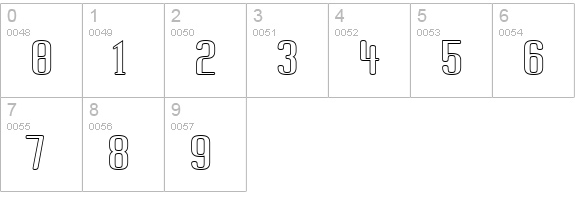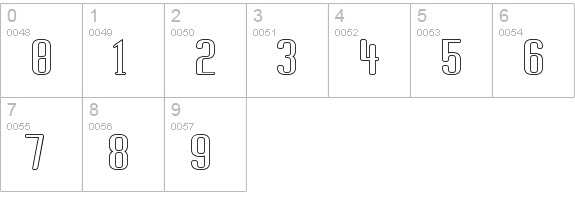
Brassiere Seethru Font Details
Brassiere Seethru font is a stunning display typeface that exudes elegance and sophistication. Its delicate and intricate design captures the essence of femininity, making it perfect for creating glamorous and stylish designs. The transparent elements of the font add a touch of modernity and creativity, setting it apart from traditional typefaces. This unique font is ideal for fashion, beauty, and luxury branding, as well as for editorial design, invitations, and more. Its versatility allows it to be used for a wide range of projects, adding a touch of sophistication and charm. And the best part? Brassiere Seethru font is completely free to download at FontsMarket.com, making it accessible to all designers and creatives looking to elevate their projects with a touch of glamour. Download this gorgeous font today and add a touch of elegance to your designs!